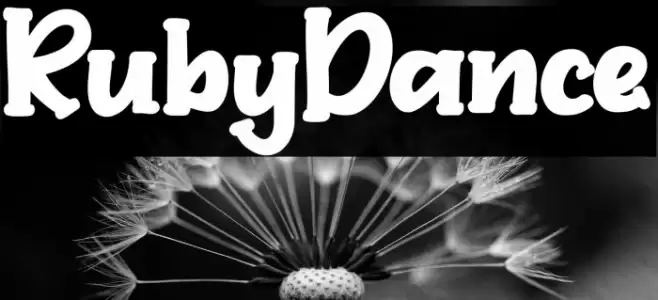
RubyDance Font
RubyDance Description
This font features a playful and bold handwritten style, characterized by its thick strokes and rounded edges. The uppercase and lowercase letters maintain a consistent, flowing appearance, giving it a casual and friendly vibe. The numerals and special characters are equally bold, ensuring readability and a cohesive look across all characters. Its unique style makes it stand out, suitable for creative and informal projects. The font's design is both approachable and energetic, making it ideal for capturing attention in a fun and engaging way.
A bold, playful handwritten font with thick strokes and rounded edges from Cartoon fonts.
- Proposed Projects: Ideal for children's books, playful branding, greeting cards, and creative posters.
- Overall Style: Playful, Casual